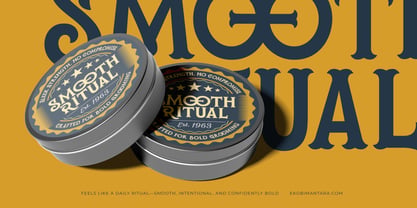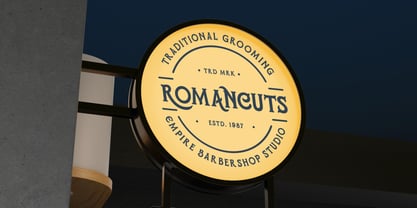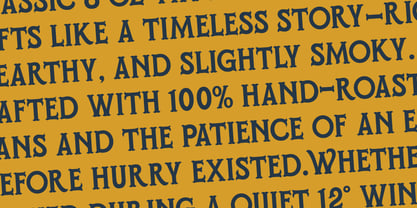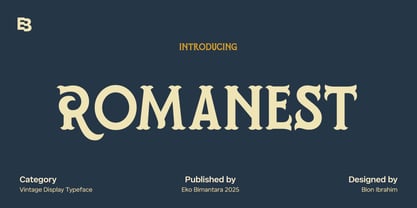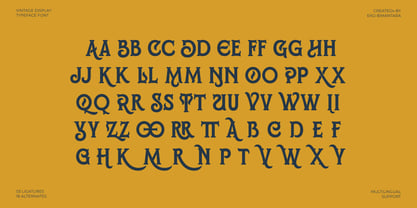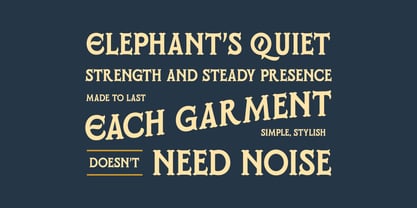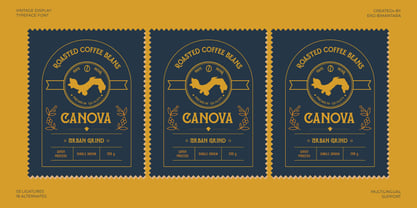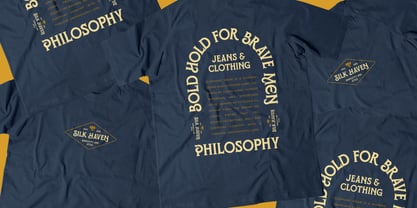
Romanest
by Eko Bimantara
The Romanest Font Family was designed by Eko Bimantara and published by Eko Bimantara. Romanest contains 1 styles. More about this family
Romanest is a decorative serif display typeface crafted to bring bold vintage character into modern design. Enriched with ornamental flares and expressive curves that make each character feel intentional and handcrafted. Romanest thrives in headlines, packaging, and branding that calls for confident personality and old-world elegance. Rooted in a classic vintage spirit, Romanest blends sturdy serif structure with subtle decorative details. Its strong presence, and distinctive shapes make it ideal for conveying heritage, craftsmanship, and storytelling. Whether used for apparel branding, products, or nostalgic editorial layouts, Romanest delivers a smooth balance of strength, style, and character.